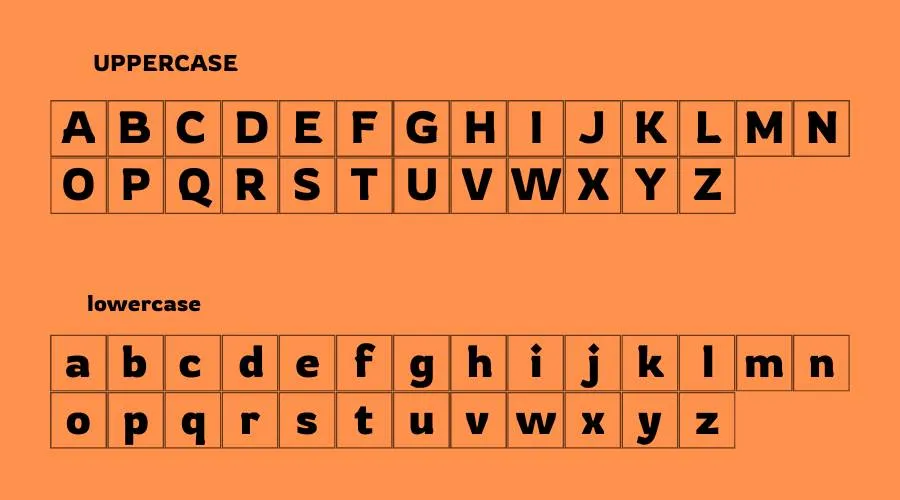
About Rowdy Font
Rowdy Font is a display typeface that is an ideal choice for any type of project that requires an extra touch of elegance that has been designed by Hannes von Dohren. That font family has 3 weights including the Lightweight (Semi-Condensed).
This font is perfect for designers and many designers use this font for branding materials and packaging. It can easily be paired with the wurst cactus font and make new trendy projects.